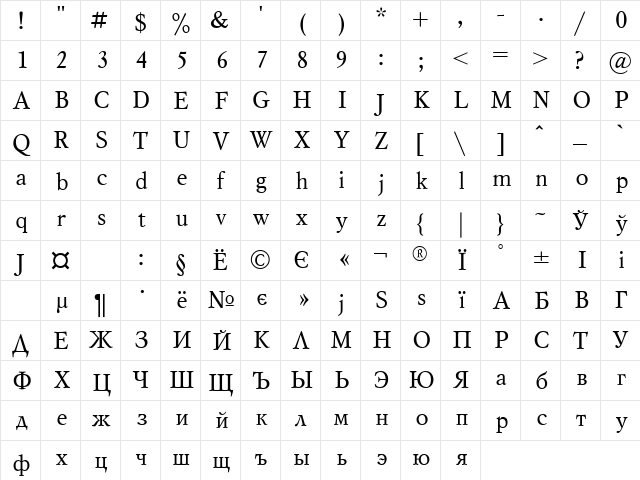
UkrainianMysl Regular
Design Context for UkrainianMysl Typeface
UkrainianMysl is a composed and adaptable typeface that performs quietly and consistently across a wide range of design contexts.